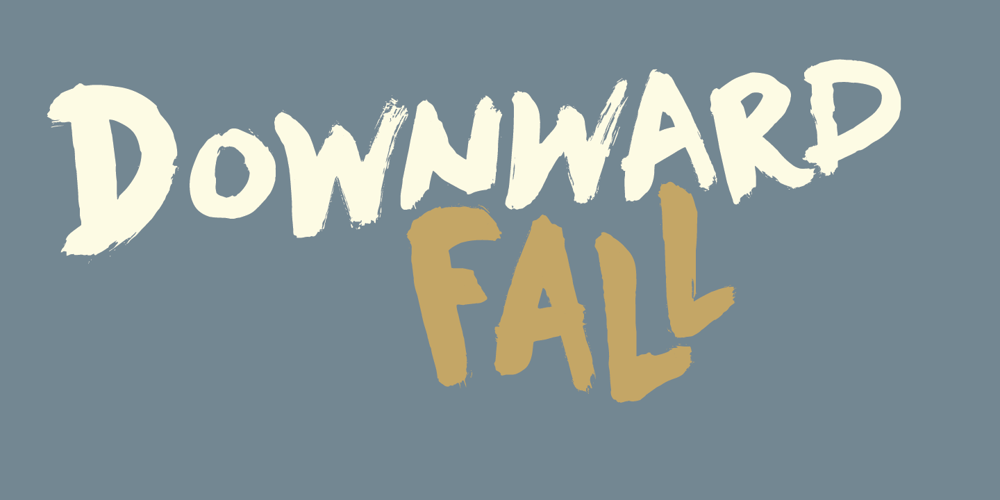
Downward Fall
Downward Fall font
Downward Fall Font Family was designed by David Kerkhoff and published by Hanoded. Downward Fall contains 1 styles and family package options. Downward Fall owes its name to one of my favorite Opeth songs, called The Funeral Portrait. The song itself is an uptempo metal composition with rather dark lyrics. This peculiar combination, a mix of good and evil if you will, is what characterizes Downward Fall font: the brushwork is quick, giving the impression of speed. The undertone is darker, scarier – lots of jaggedness and decay. Downward Fall font comes with a 20.000 foot drop of diacritics.